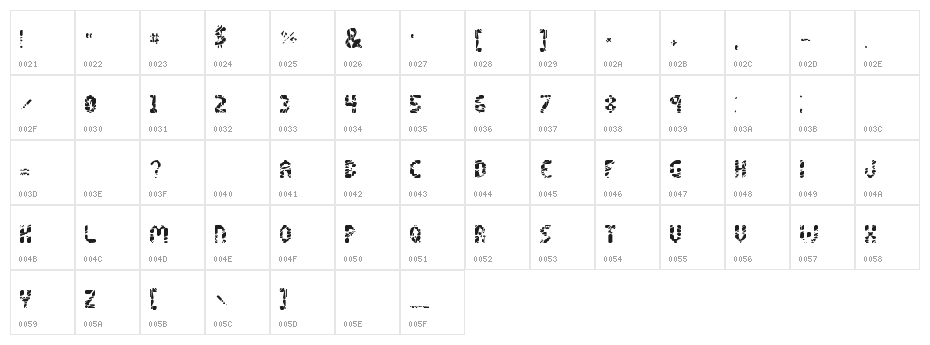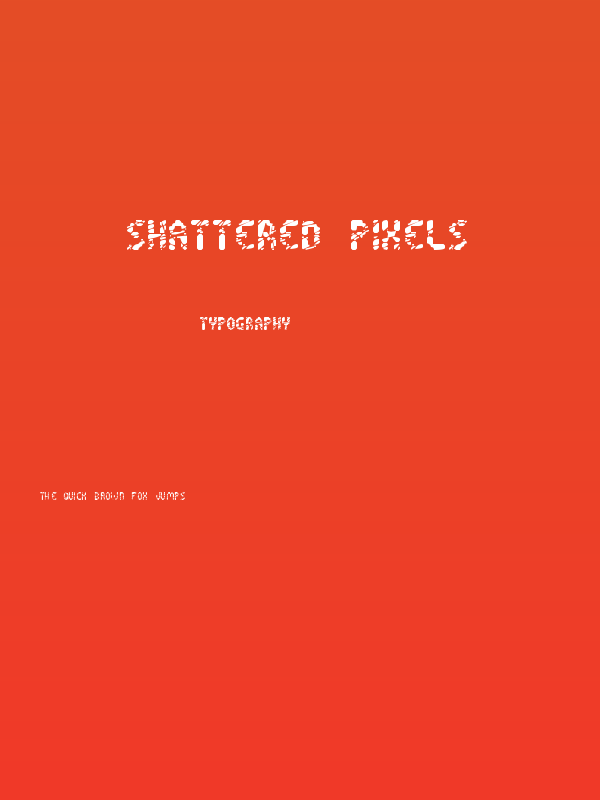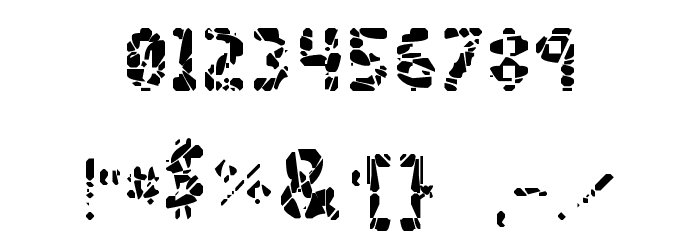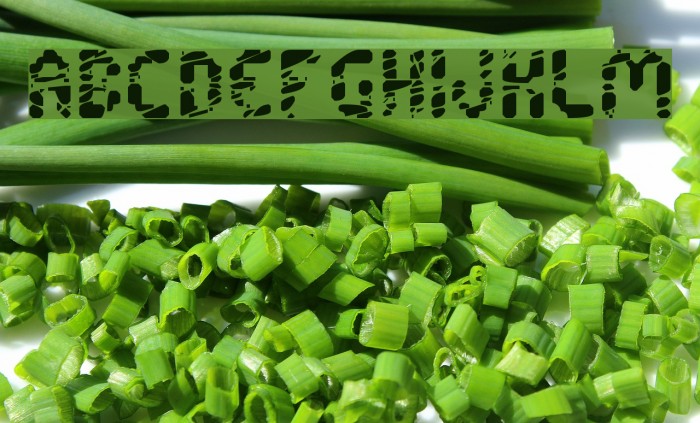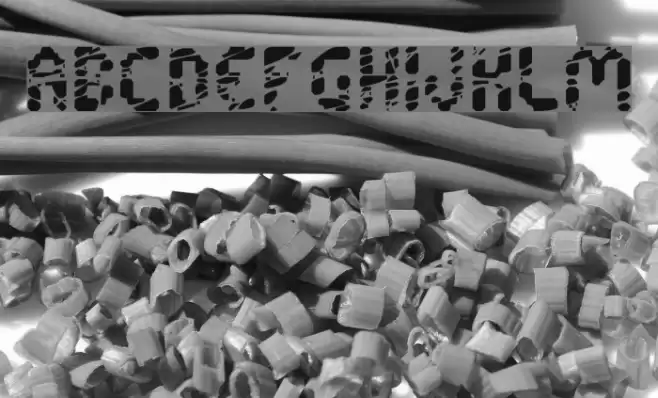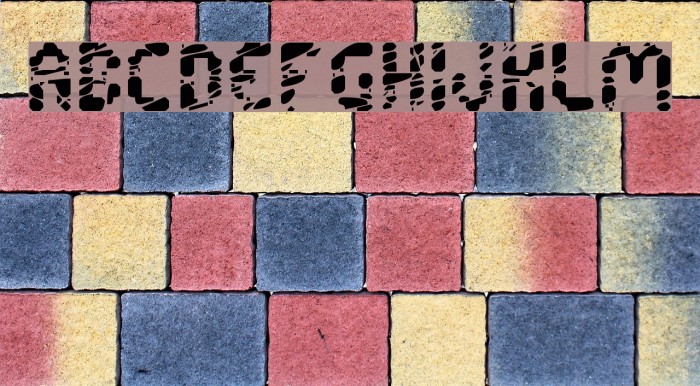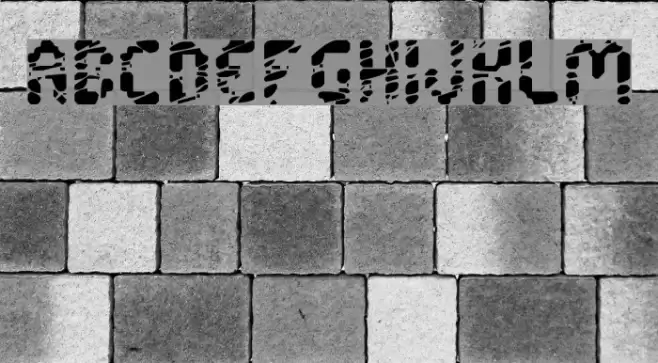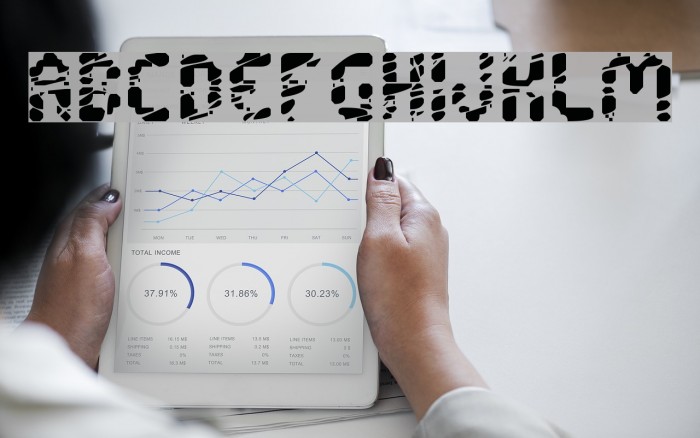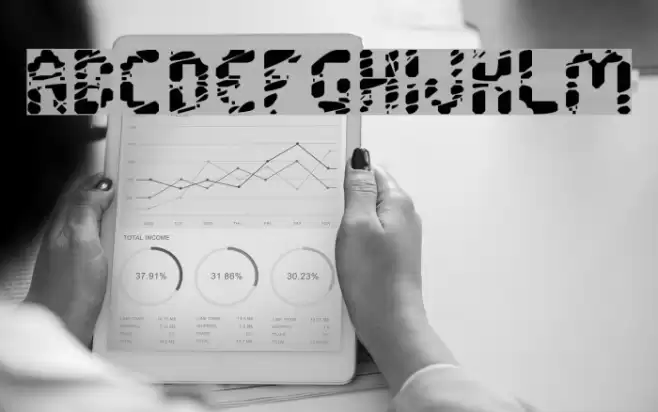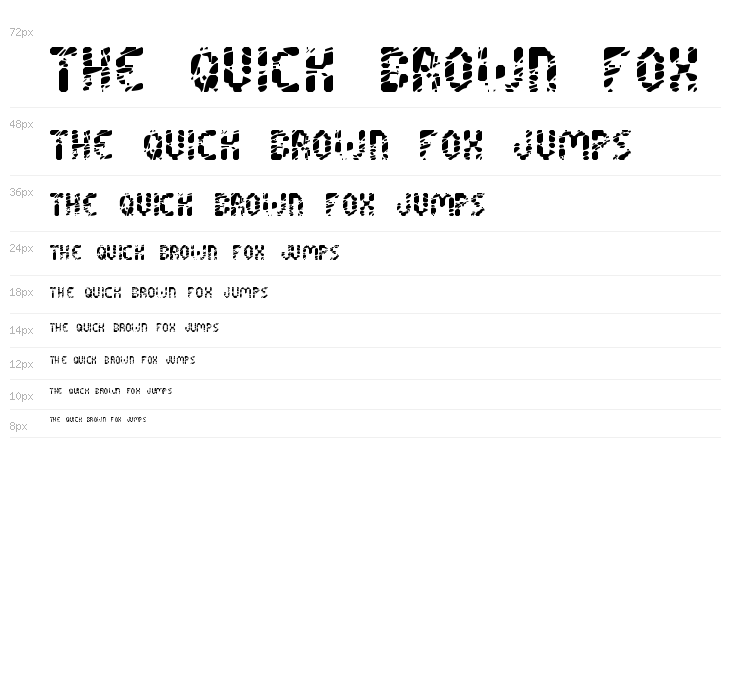
Shattered Pixels Font
✎ Distorted Eroded
| Vorgeschlagene Projekte | Ideal for album covers, video game titles, posters, and digital art projects that require a striking and unconventional typeface. |